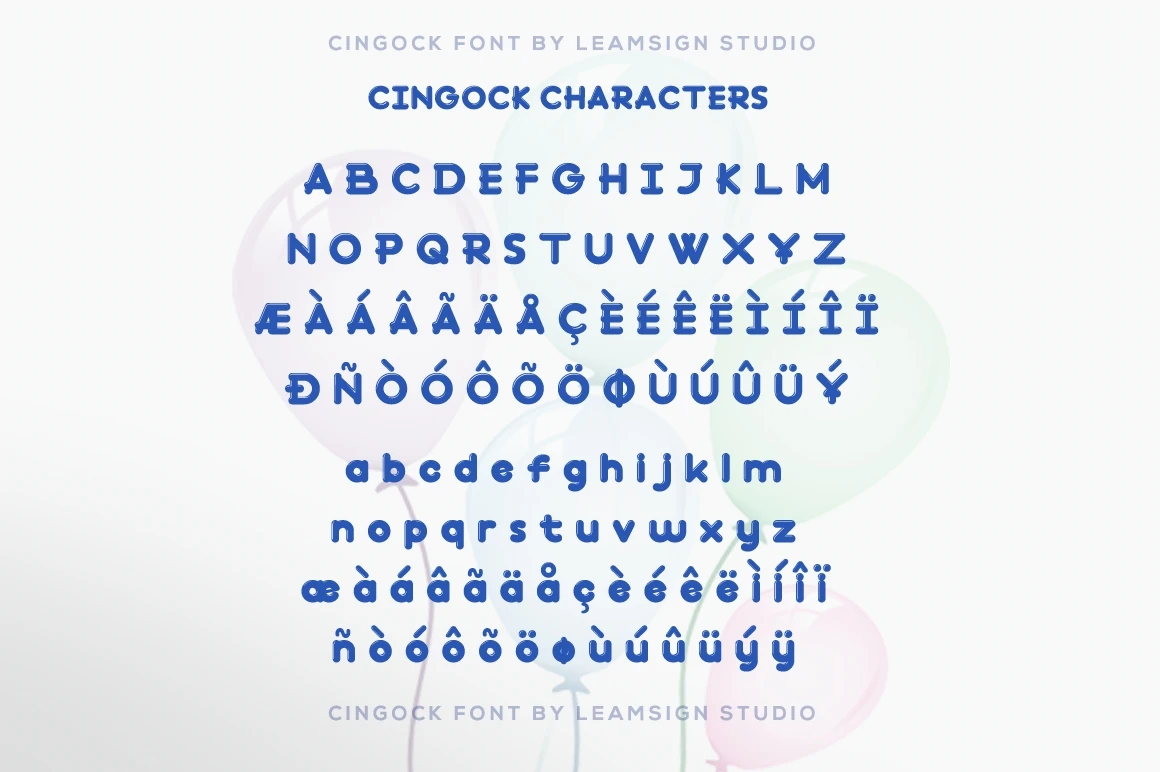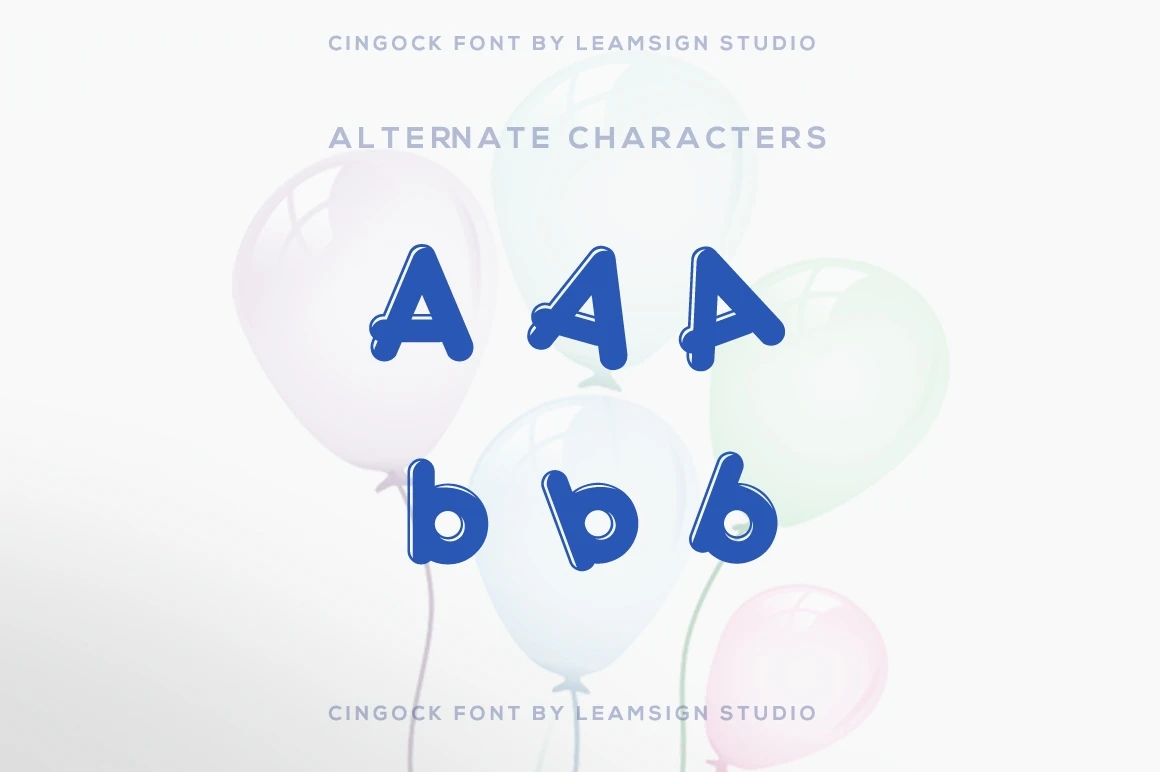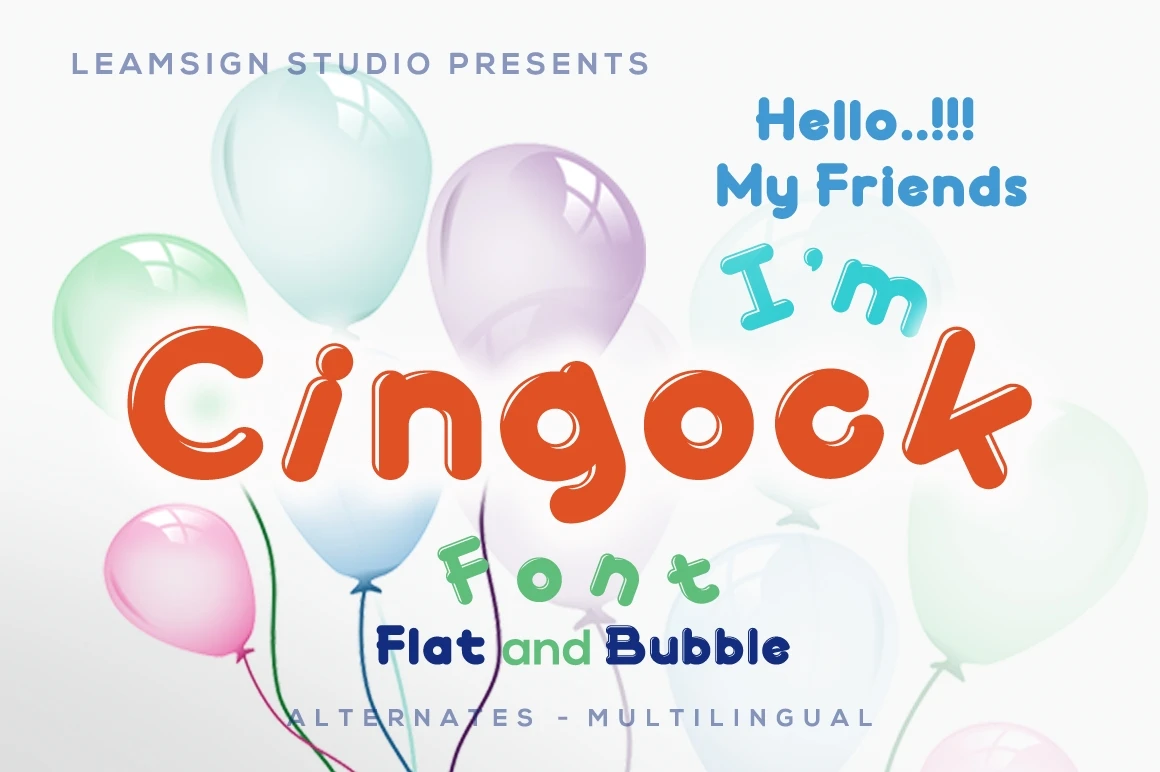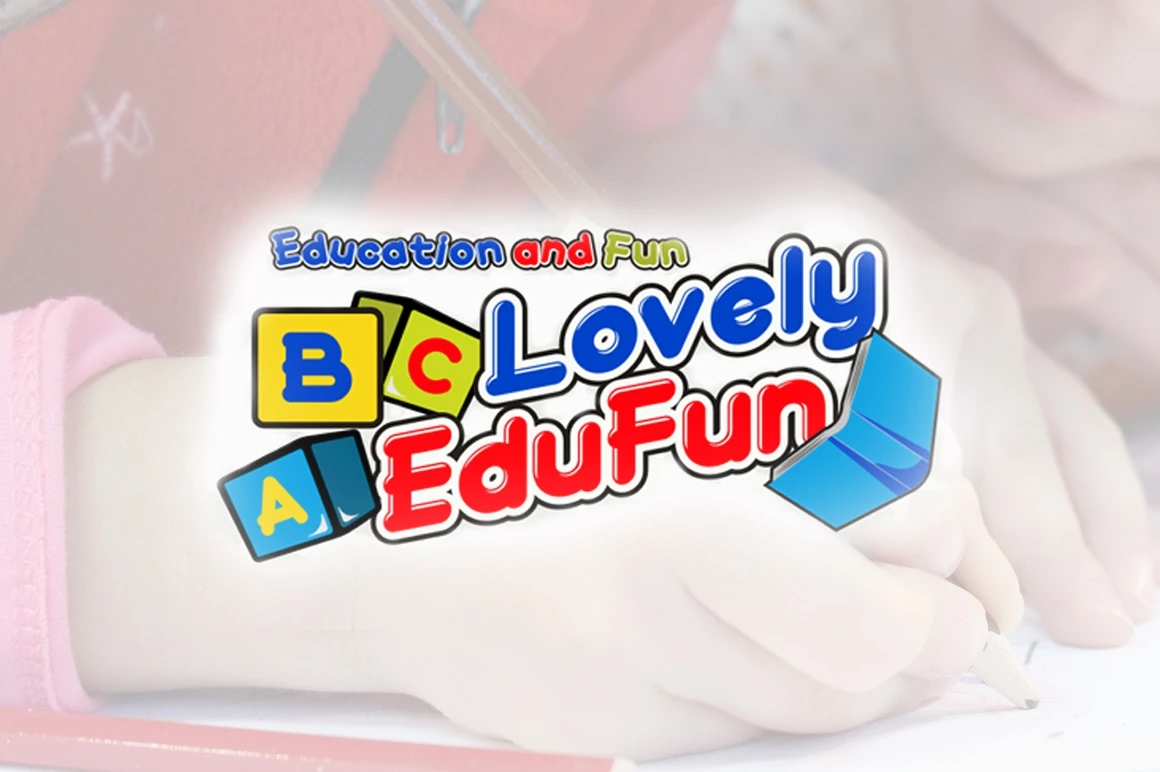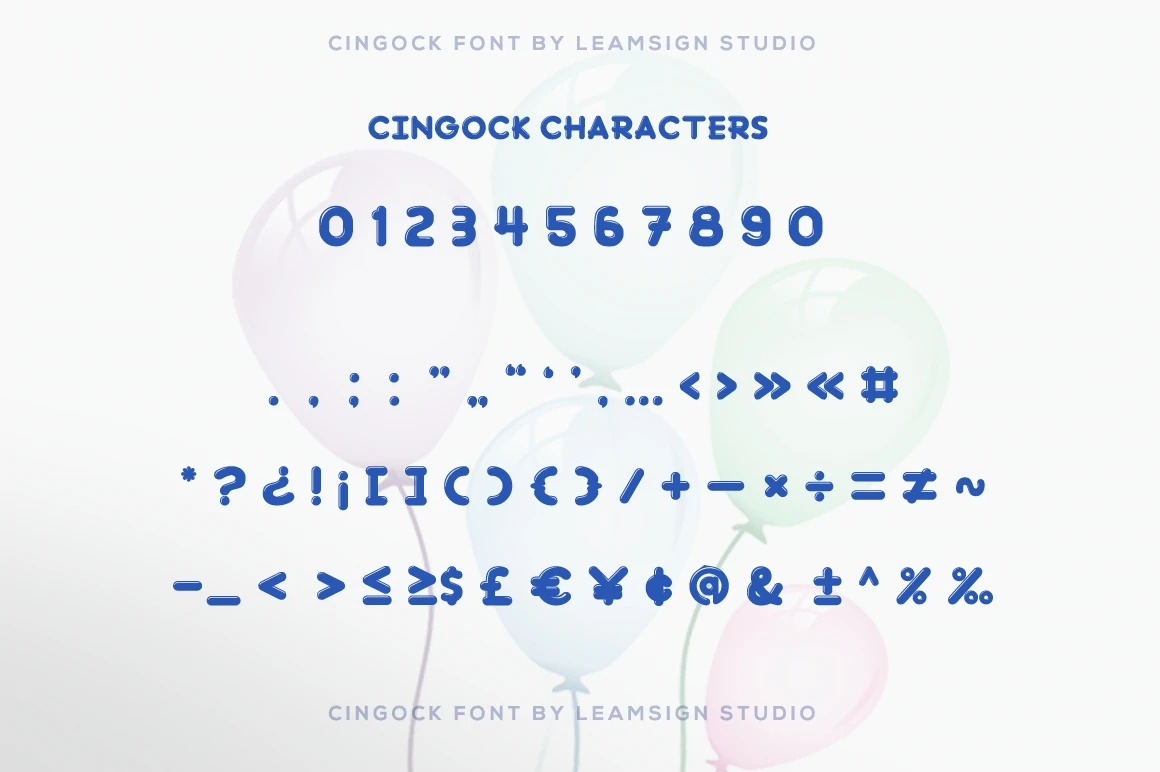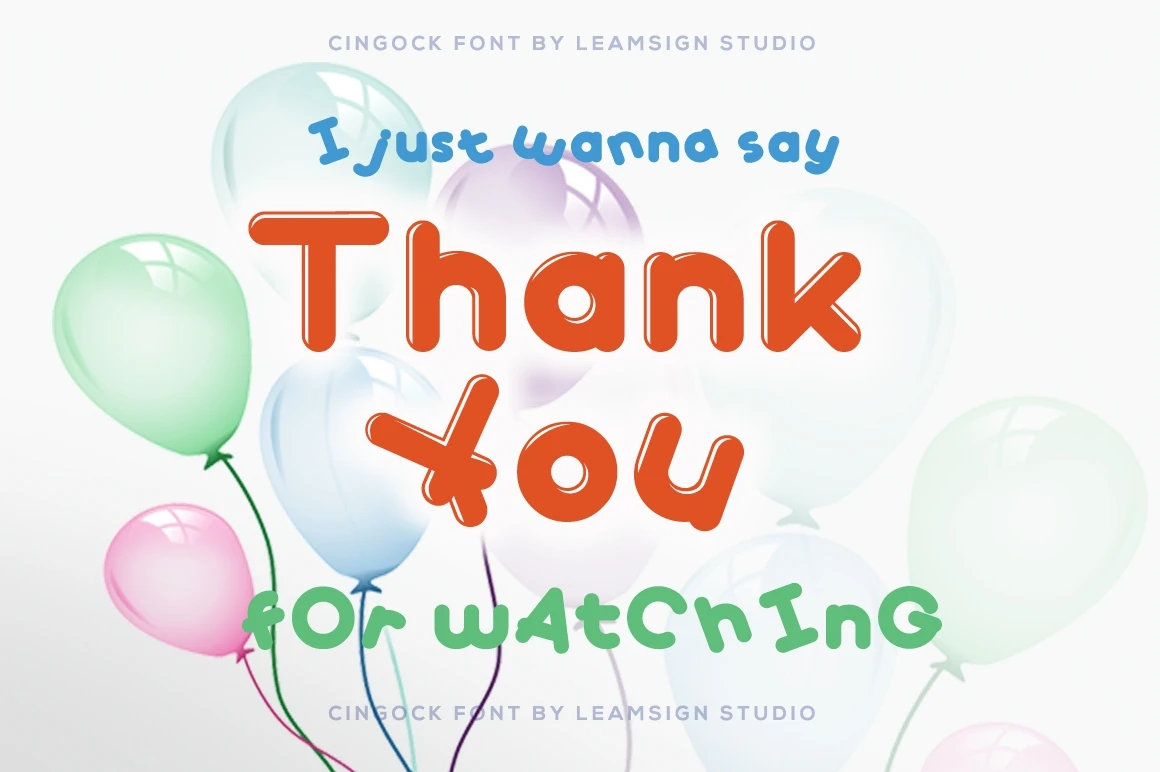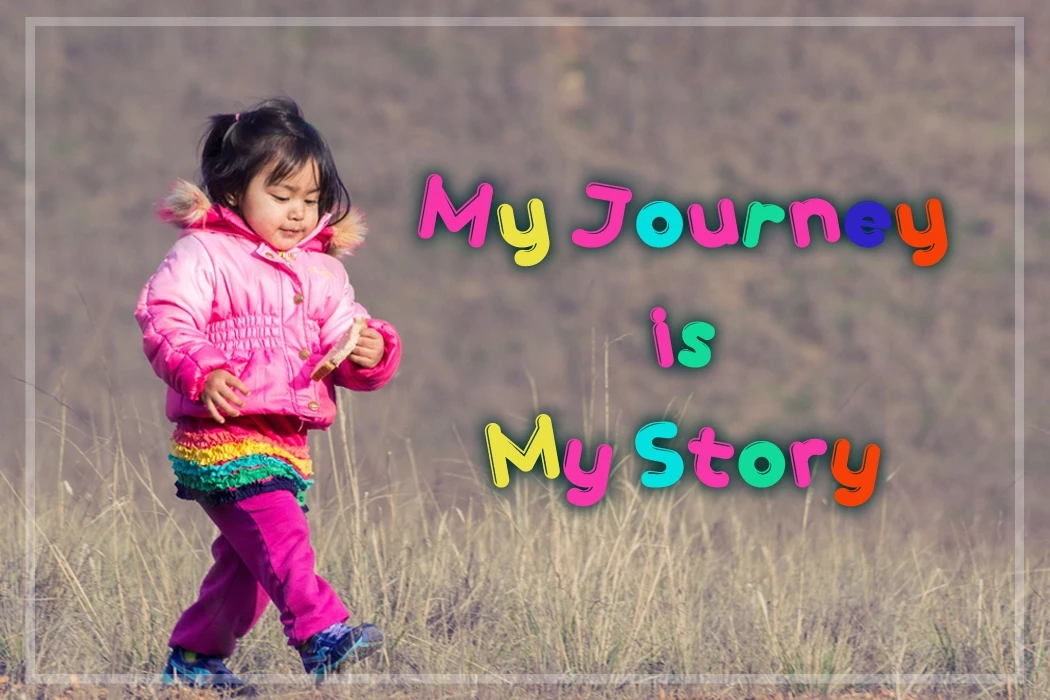
Cingock is a fun, modern and clean display font with closed forms.
Basic latin, punctuation, alternates and kerning are available.
Ideally suited for logos, branding, advertising, packaging and so many more.
- Uppercase A-Z
- Lowercase a-z
- Numbers 0-9
- Punctuation
- lowercase alternates
- Uppercase alternates
- Multilingual support